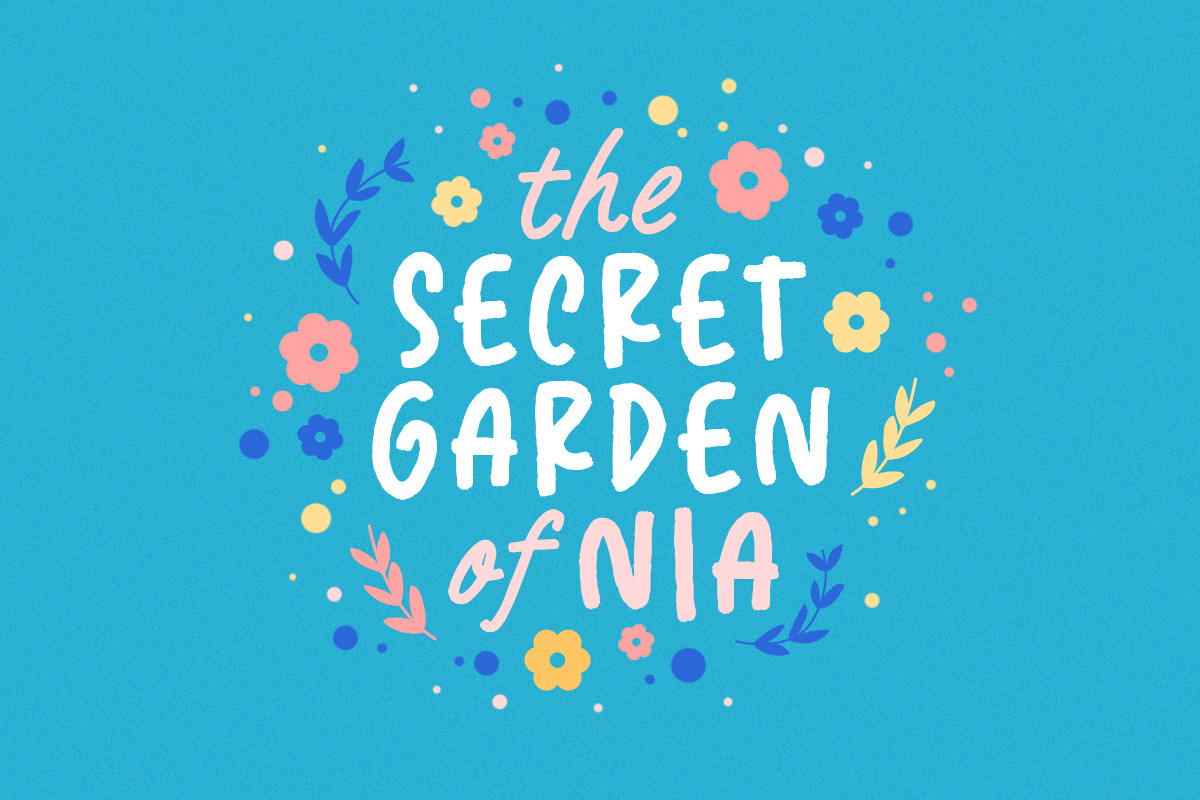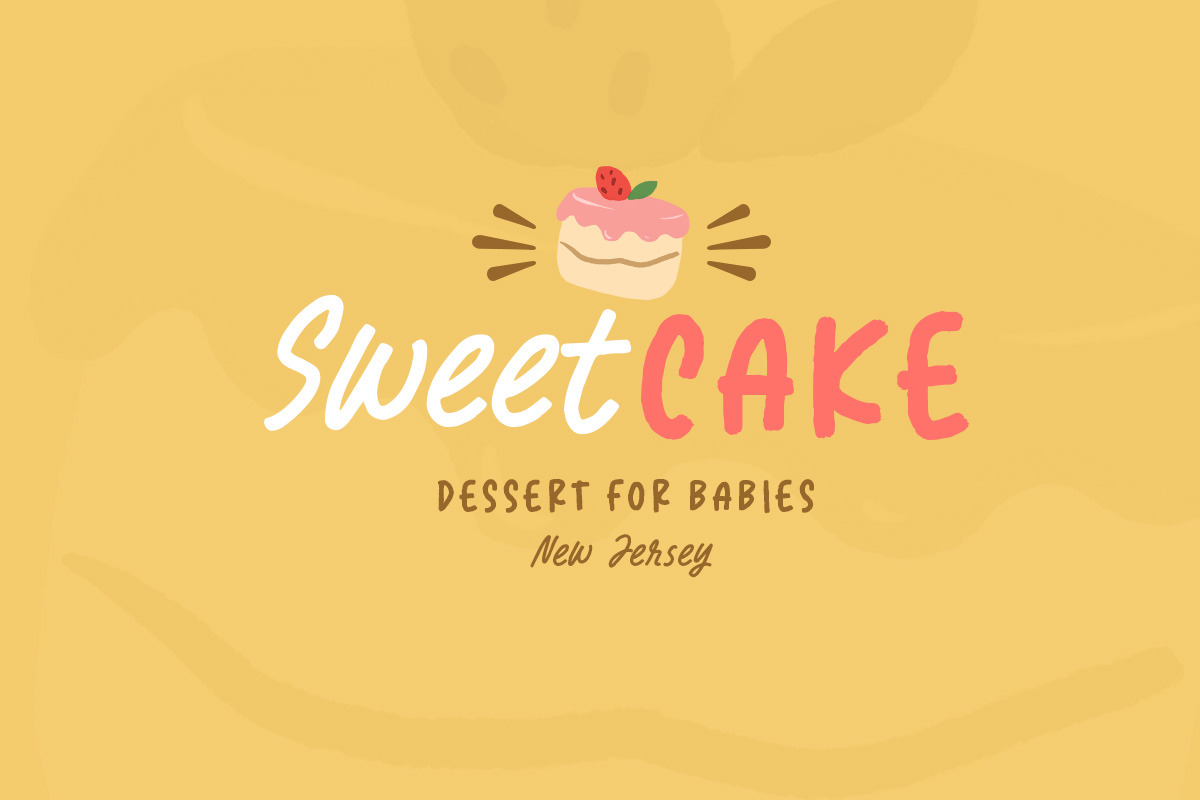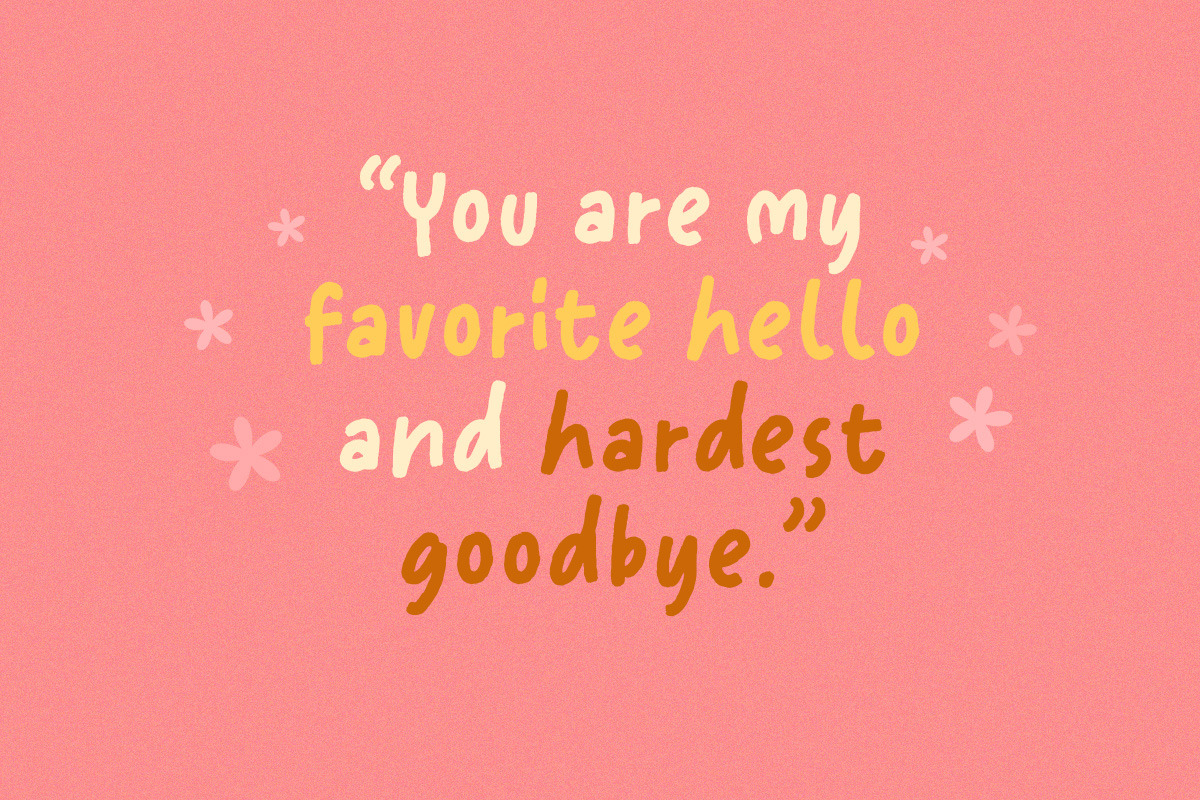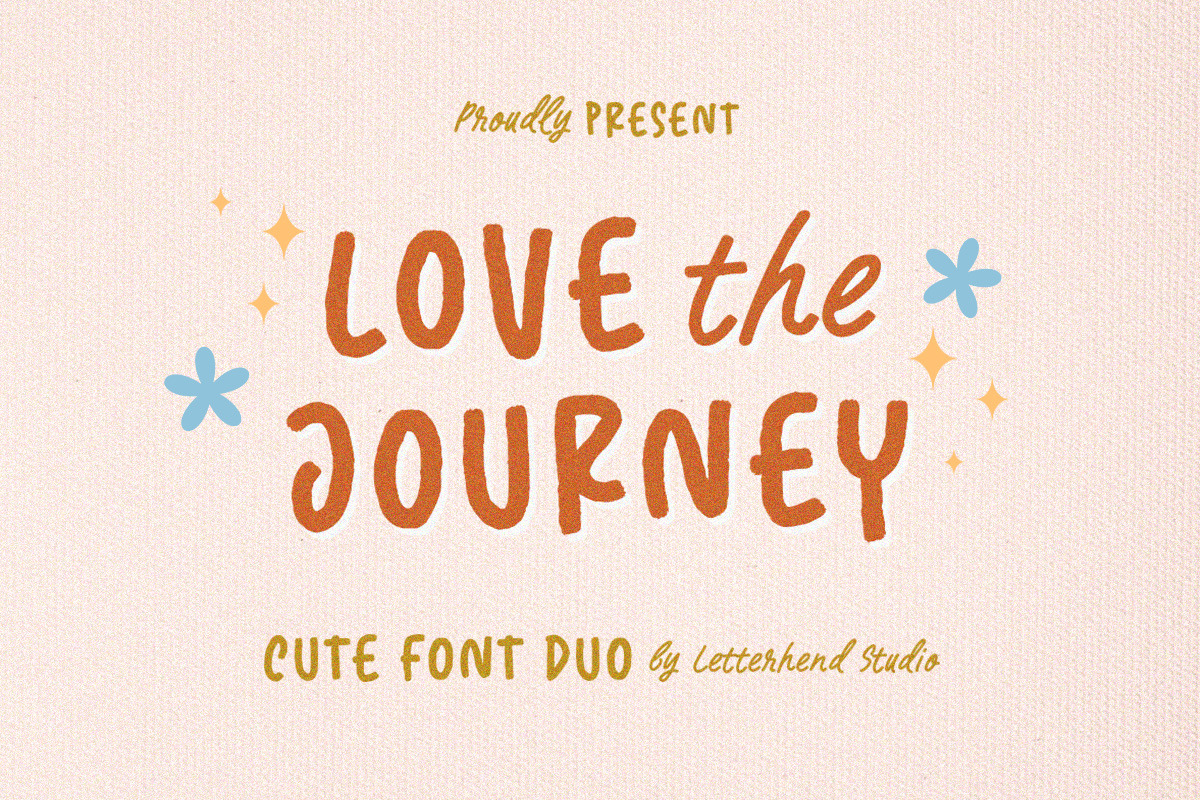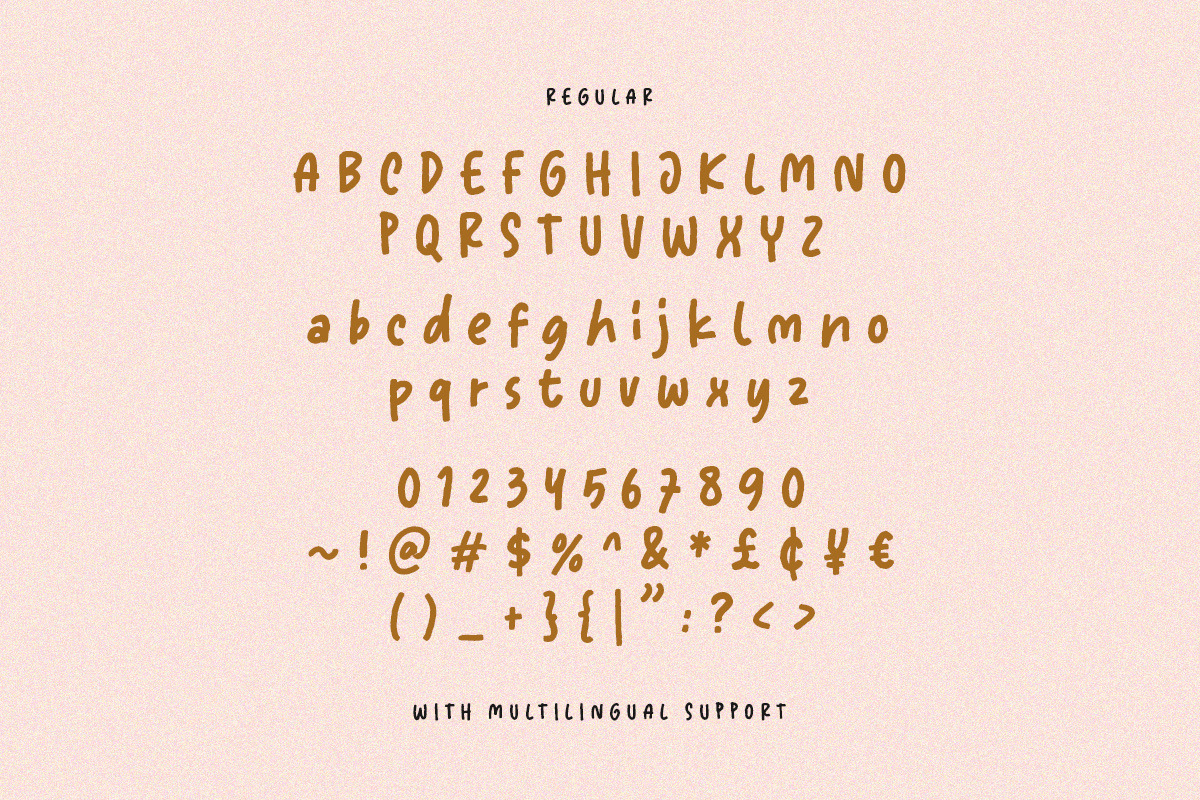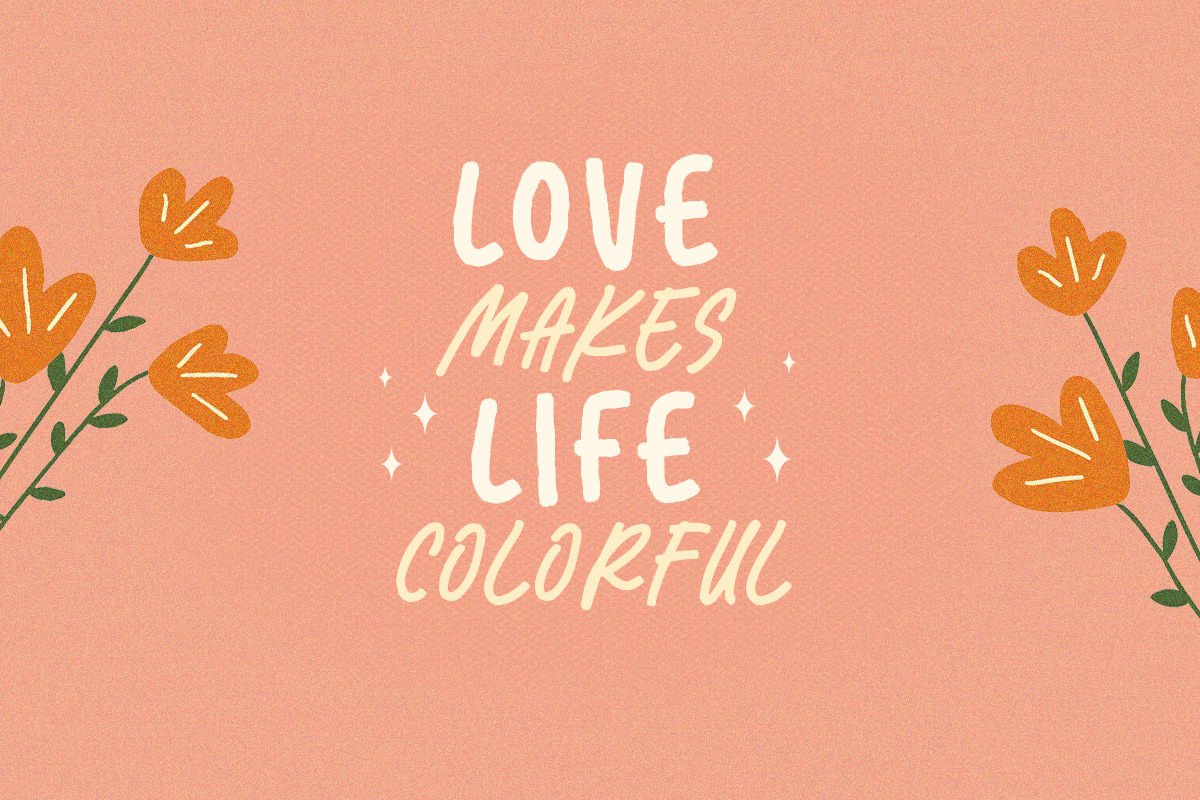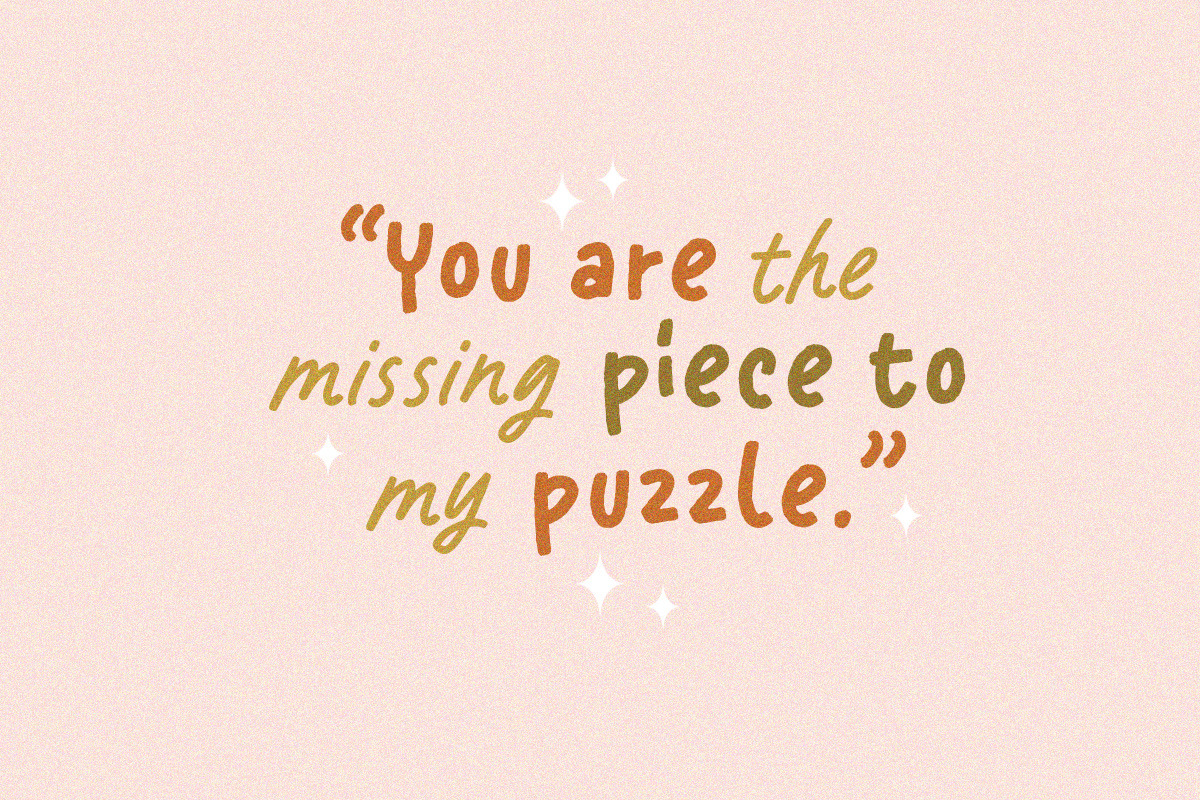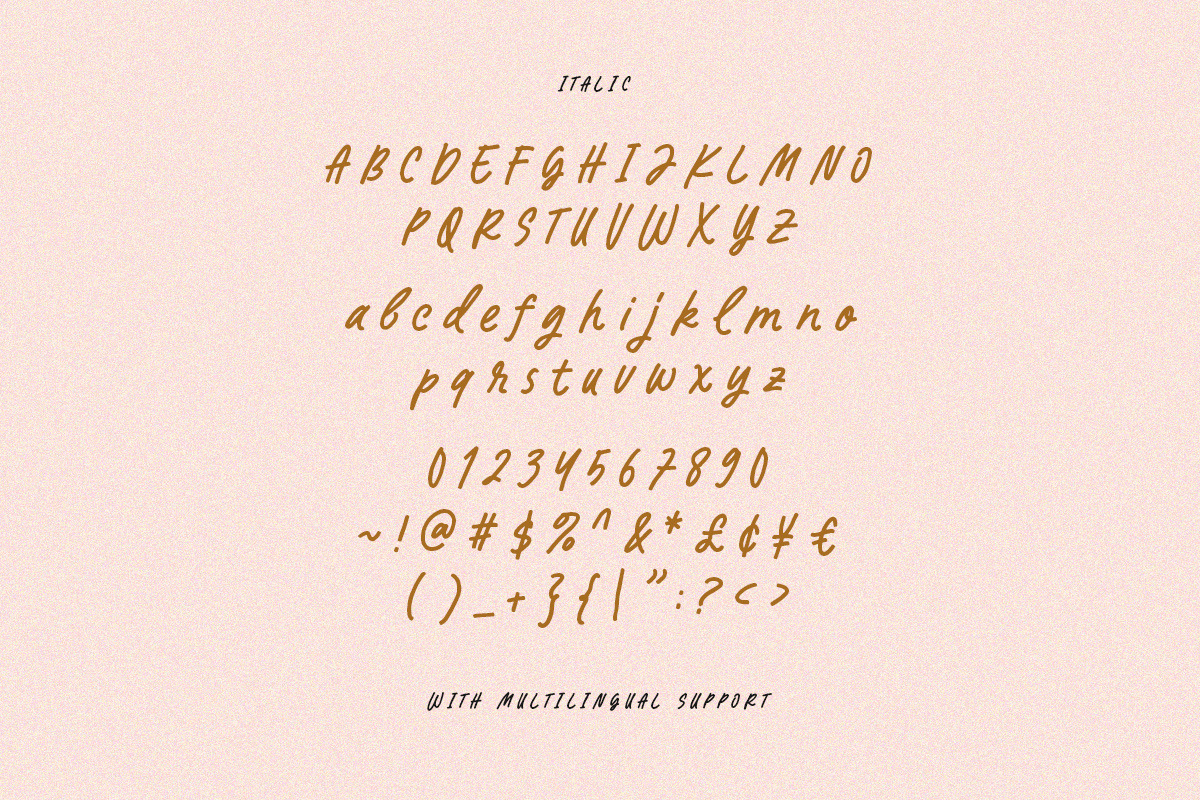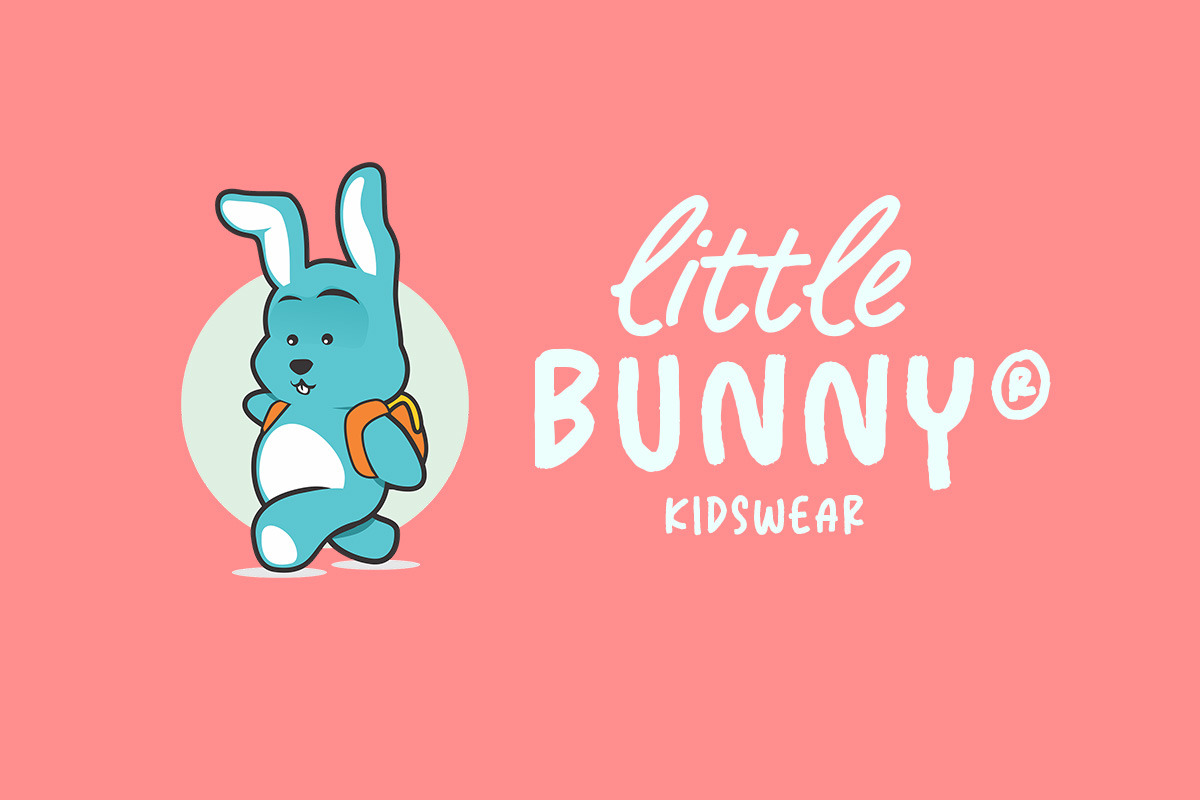
Love The Journey - Cute Font Duo
Love The Journey is a cute hand writing with 2 style, regular and slant version. This font perfectly made to be applied especially in logo, and the other various formal forms such as invitations, labels, logos, magazines, books, greeting / wedding cards, packaging, fashion, make up, stationery, novels, labels or any type of advertising purpose.